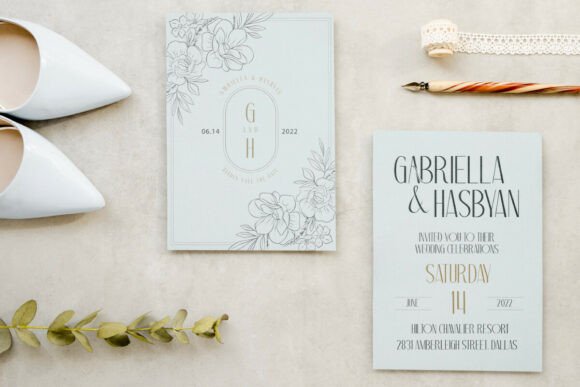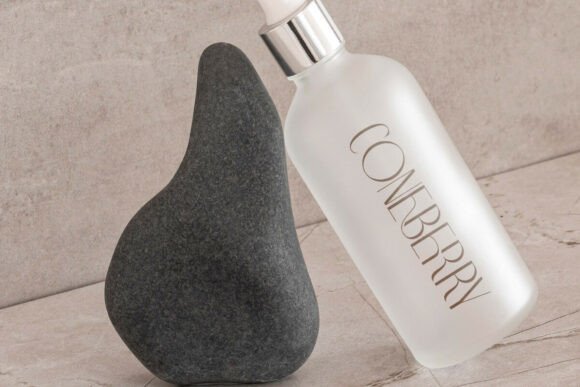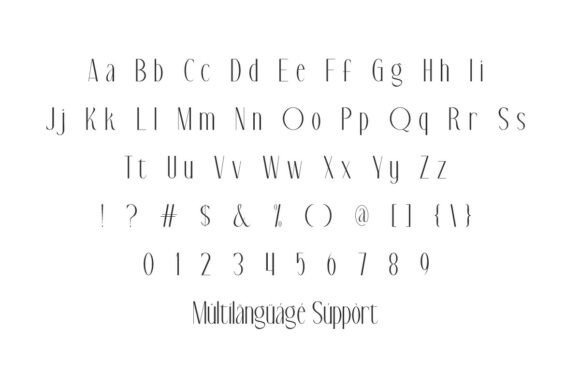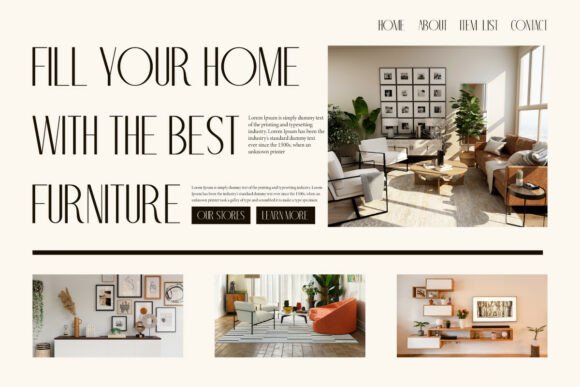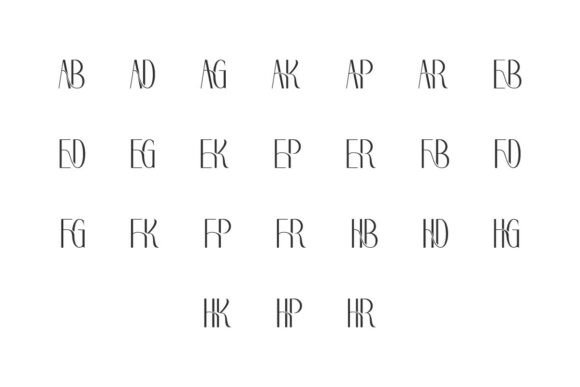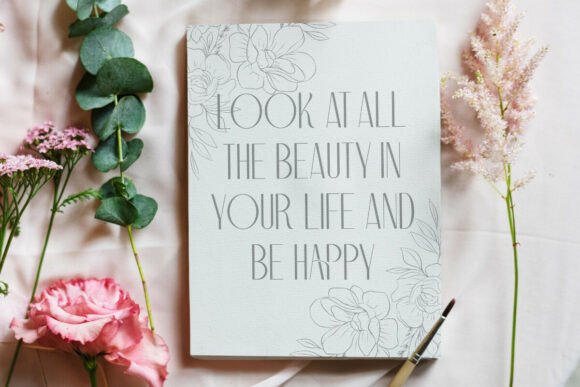
Coneberry Font: Elevate Your Designs with Sophistication
In the world of typography, fonts play a crucial role in conveying the tone and aesthetic of a brand or design. For designers and crafters looking to add a touch of sophistication to their work, Coneberry Font is an excellent choice. This stylish sans serif font is designed to make a statement, with a chic and sleek high-contrast design that exudes modernity.
What is Coneberry Font?
Coneberry Font is a sophisticated display font that boasts a simple yet meaningful typeface. Its sans serif aesthetic gives it a clean and contemporary look, making it perfect for designers who want to create a lasting impression. The font’s high-contrast design adds a level of elegance, making it suitable for a wide range of applications.
Characteristics of Coneberry Font
Coneberry Font has several characteristics that make it an attractive choice for designers:
- High-contrast sans serif: The font’s high-contrast design gives it a unique and stylish look that sets it apart from other sans serif fonts.
- Modern feel: The font’s sleek and chic design makes it perfect for modern designs that require a touch of sophistication.
- Simple yet meaningful: The font’s simple design makes it easy to read, while its meaningful typeface adds a level of depth to the text.
Use Cases for Coneberry Font
Coneberry Font is a versatile font that can be used in a wide range of applications, including:
- Cosmetic branding: The font’s sophisticated design makes it perfect for cosmetic brands looking to create a luxurious and high-end image.
- Furniture design: The font’s modern feel makes it suitable for furniture designers who want to create a sleek and contemporary look.
- Graphic design: The font’s versatility makes it a great choice for graphic designers who want to create a wide range of designs, from brochures to posters.
- Home decor: The font’s chic design makes it perfect for home decor brands looking to create a sophisticated and elegant image.
- Makeup artist branding: The font’s stylish design makes it suitable for makeup artists who want to create a luxurious and high-end image.
- Photography: The font’s modern feel makes it perfect for photographers who want to create a sleek and contemporary look.
- Real estate branding: The font’s sophisticated design makes it suitable for real estate brands looking to create a luxurious and high-end image.
- Skincare branding: The font’s elegant design makes it perfect for skincare brands looking to create a sophisticated and high-end image.
- Wedding organizing: The font’s chic design makes it suitable for wedding organizers who want to create a luxurious and elegant image.
Why Choose Coneberry Font?
Coneberry Font is an excellent choice for designers and crafters looking to add a touch of sophistication to their work. Here are some reasons why:
- Unique design: The font’s high-contrast sans serif design makes it stand out from other fonts.
- Versatility: The font can be used in a wide range of applications, from cosmetic branding to wedding organizing.
- Easy to read: The font’s simple design makes it easy to read, even at small sizes.
- Modern feel: The font’s sleek and chic design makes it perfect for modern designs.
Coneberry Font is a sophisticated display font that is perfect for designers and crafters looking to add a touch of elegance to their work. Its high-contrast sans serif design, modern feel, and versatility make it an excellent choice for a wide range of applications. Whether you’re looking to create a luxurious cosmetic brand or a sleek and contemporary furniture design, Coneberry Font is an excellent choice.